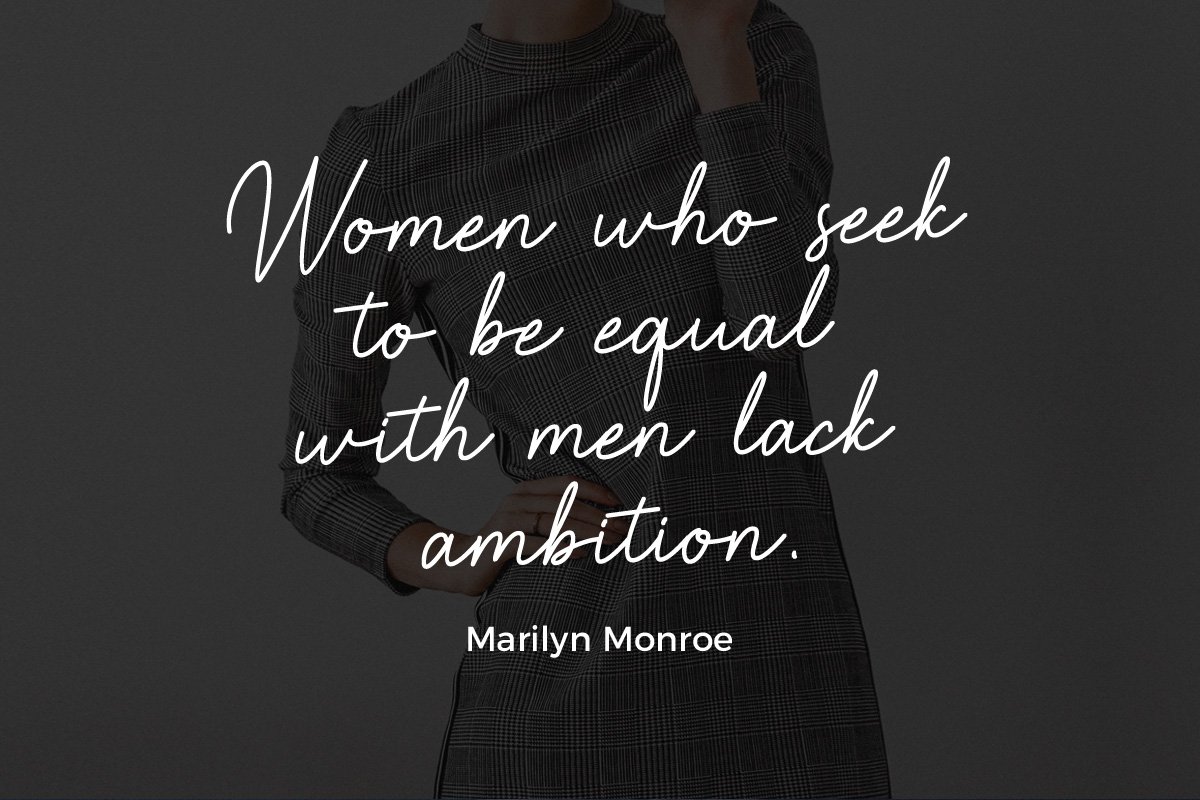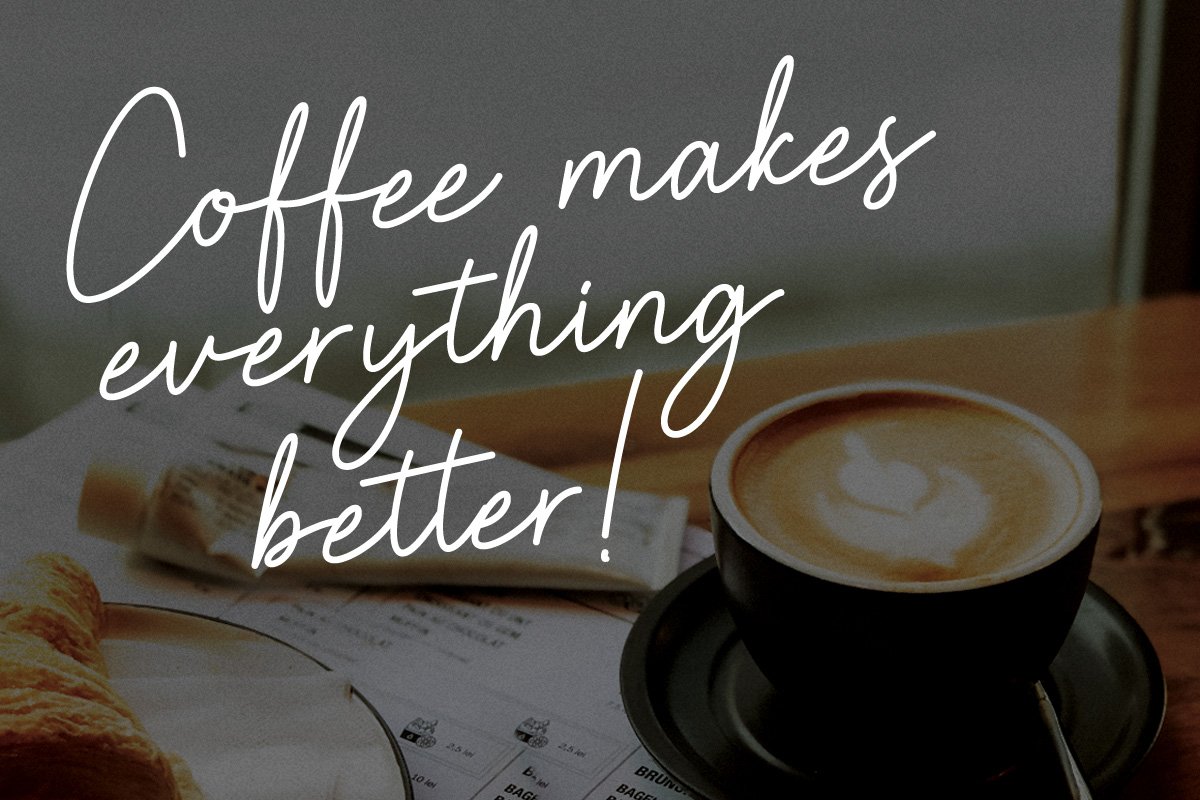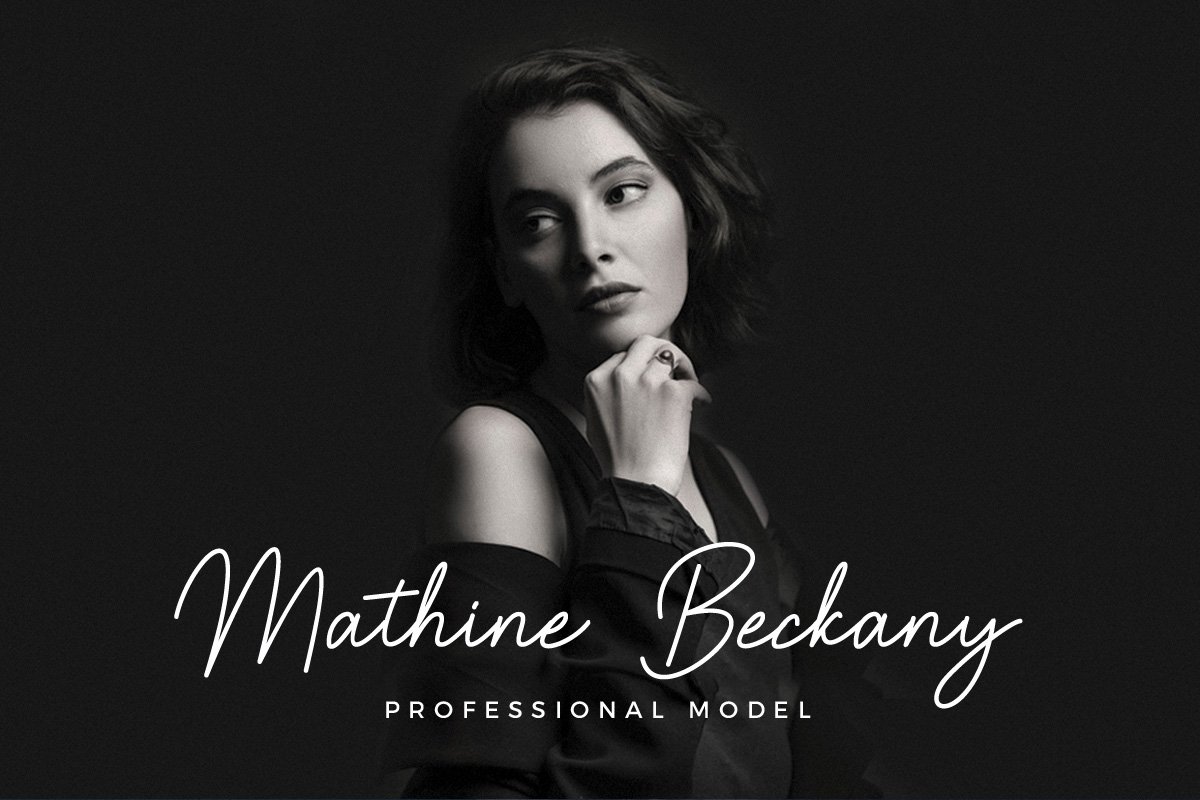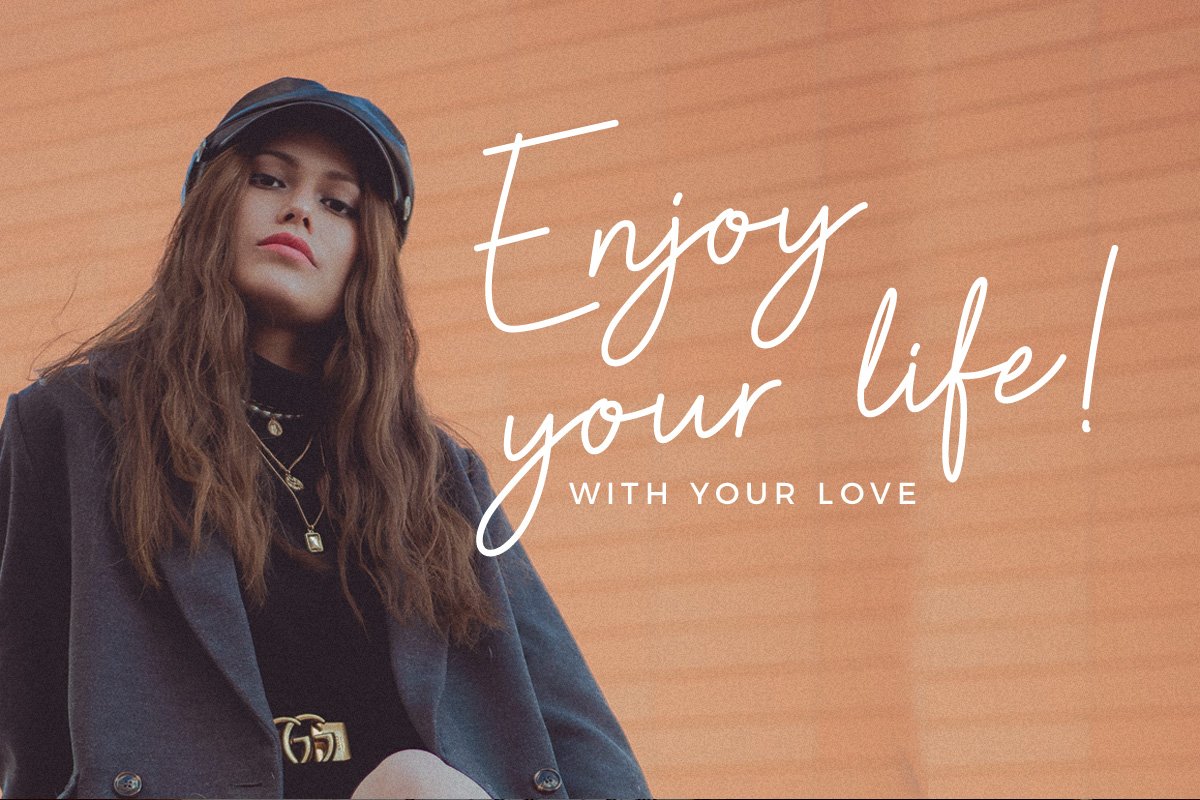
About the Mashiny Handwritten Font
Mashiny is a handwritten font with unique curves and an elegant inky flow, Mashiny is perfect for photography, watermark, social media posts, advertisements, logos & branding, invitation, product designs, label, stationery, wedding designs, product packaging, special events or anything that need handwriting taste, What’s Included :Uppercase & LowercaseLigatureNumbers & SymbolsWorks on PC / MacSimple installationsAccessible in the Adobe Illustrator, Adobe Photoshop, Adobe InDesign, even work on Microsoft WordPUA Encoded Characters, Fully accessible without additional design software